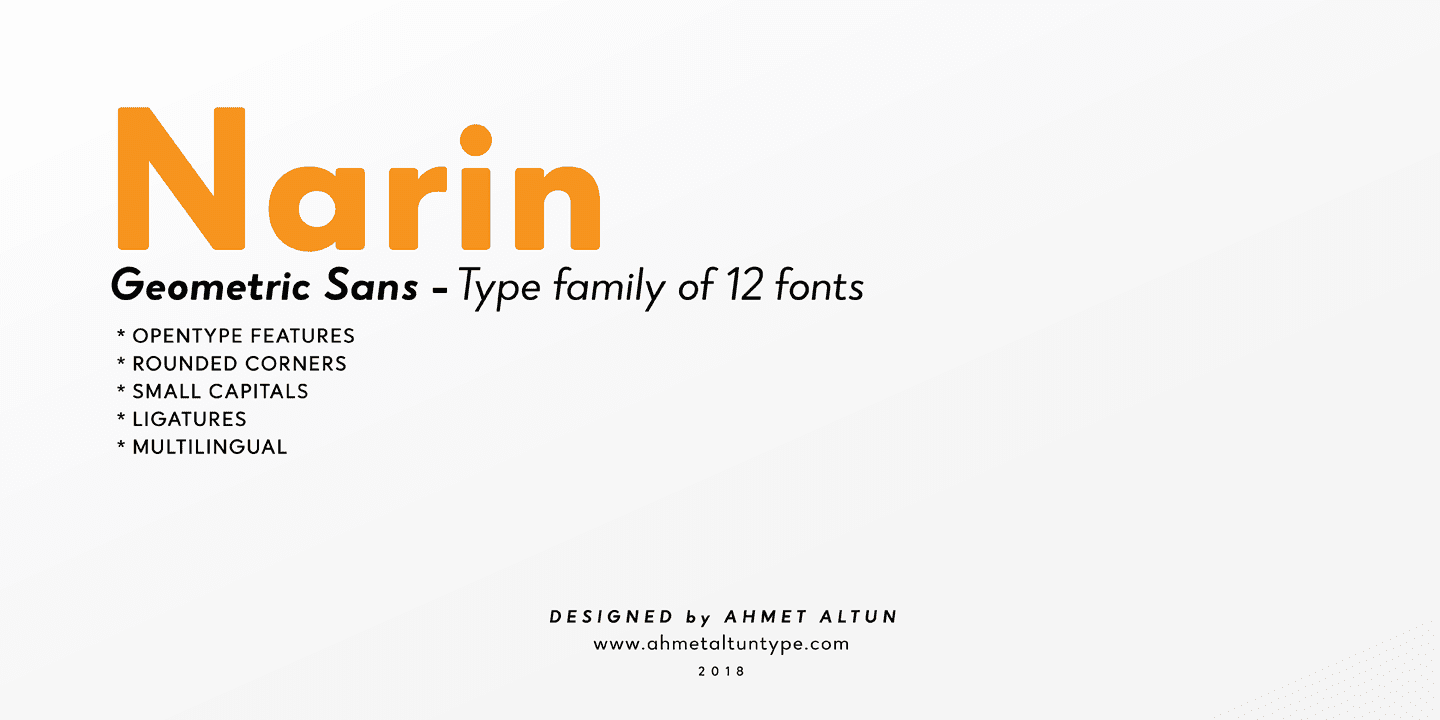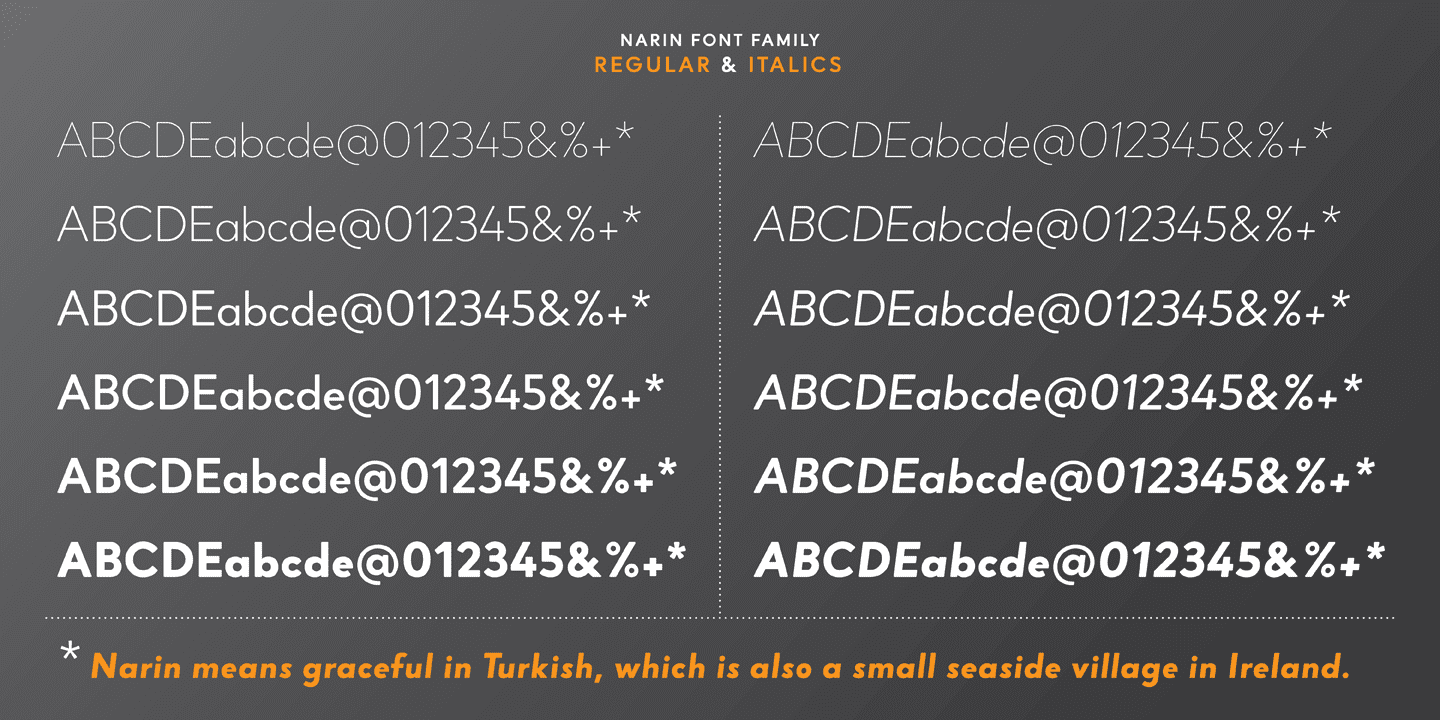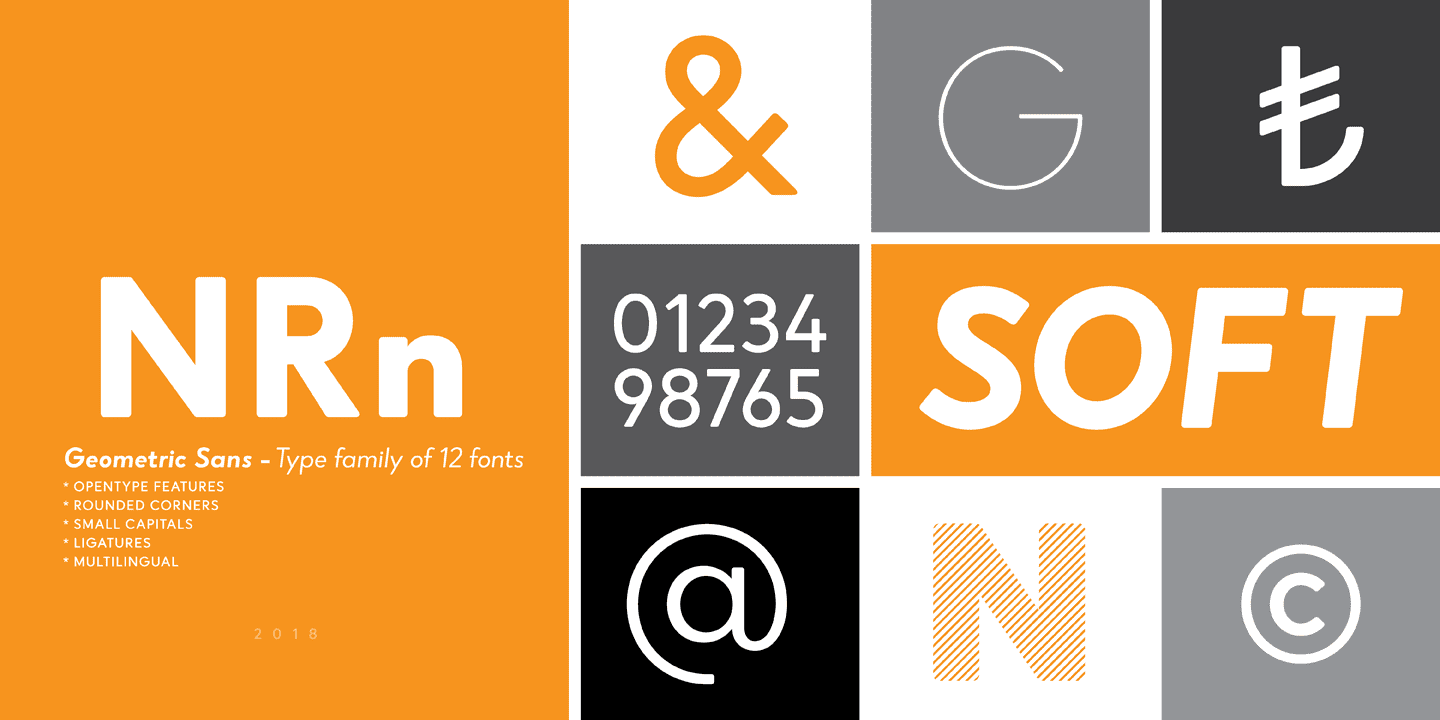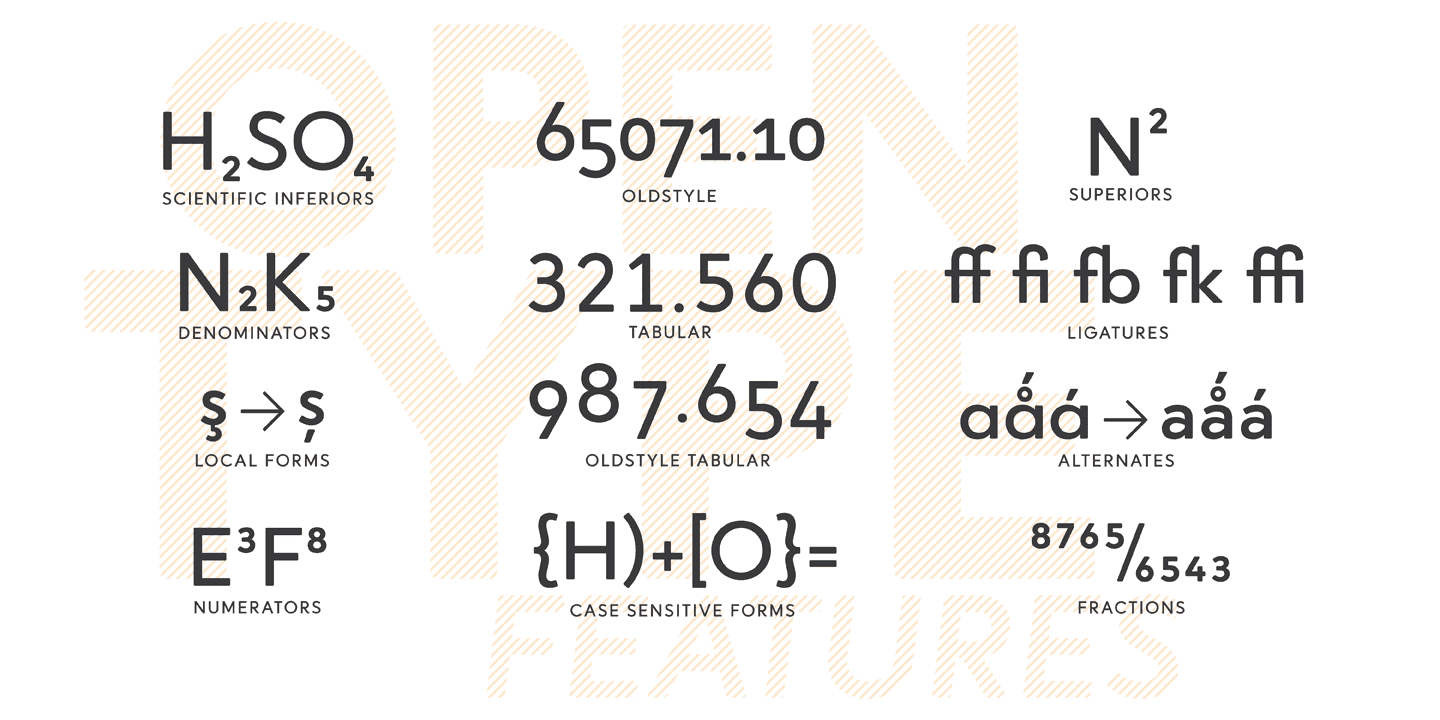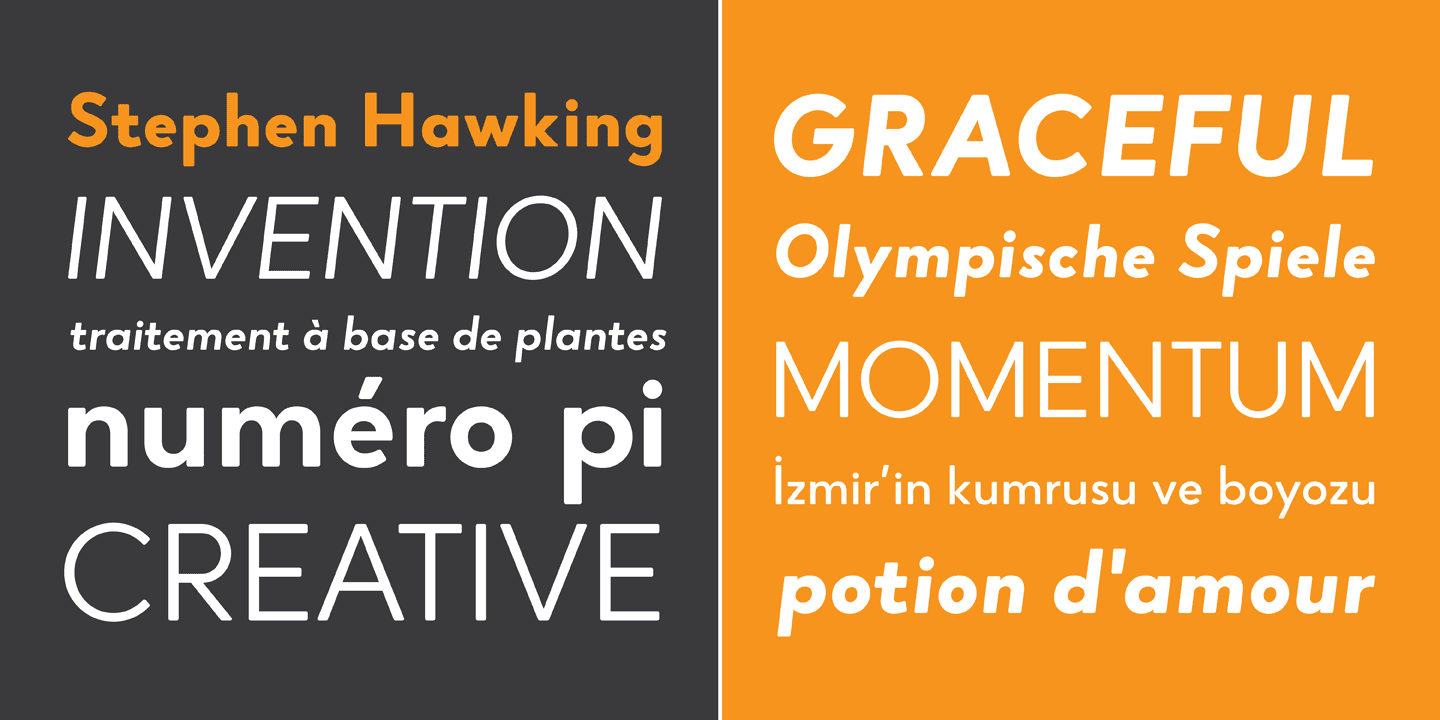
Narin Family (12 fonts)
From Ahmet Altun
Narin Font Family is legible from very small sizes to very large ones. It is suitable for letterpress and also long texts. With the small caps, all fonts can be used to create great and gorgeous works like logos, texts, presentations, t-shirts etc. and can be used to create the pressworks such as posters, magazines and books.
The word "Narin" means "graceful" in Turkish.
Old-style Digits, Ligatures, Small Caps, Alternates, Fractions, Superscript, Subscript